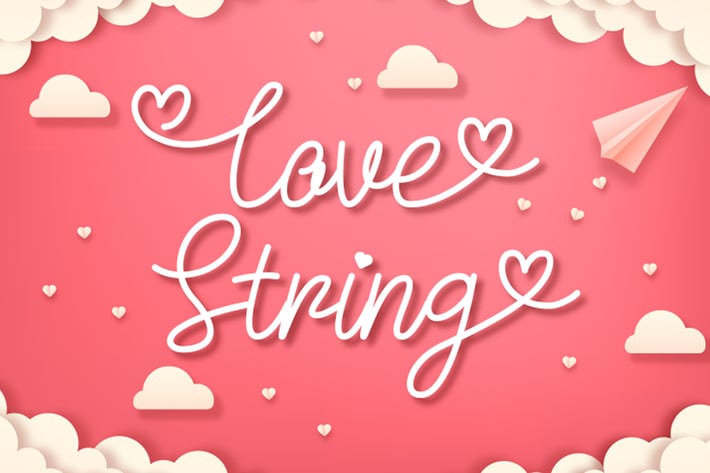
Love String - Script Font
Attype-Studio
Love String is lovely display font, including stylistic alternates that perfect for any combination for your design.